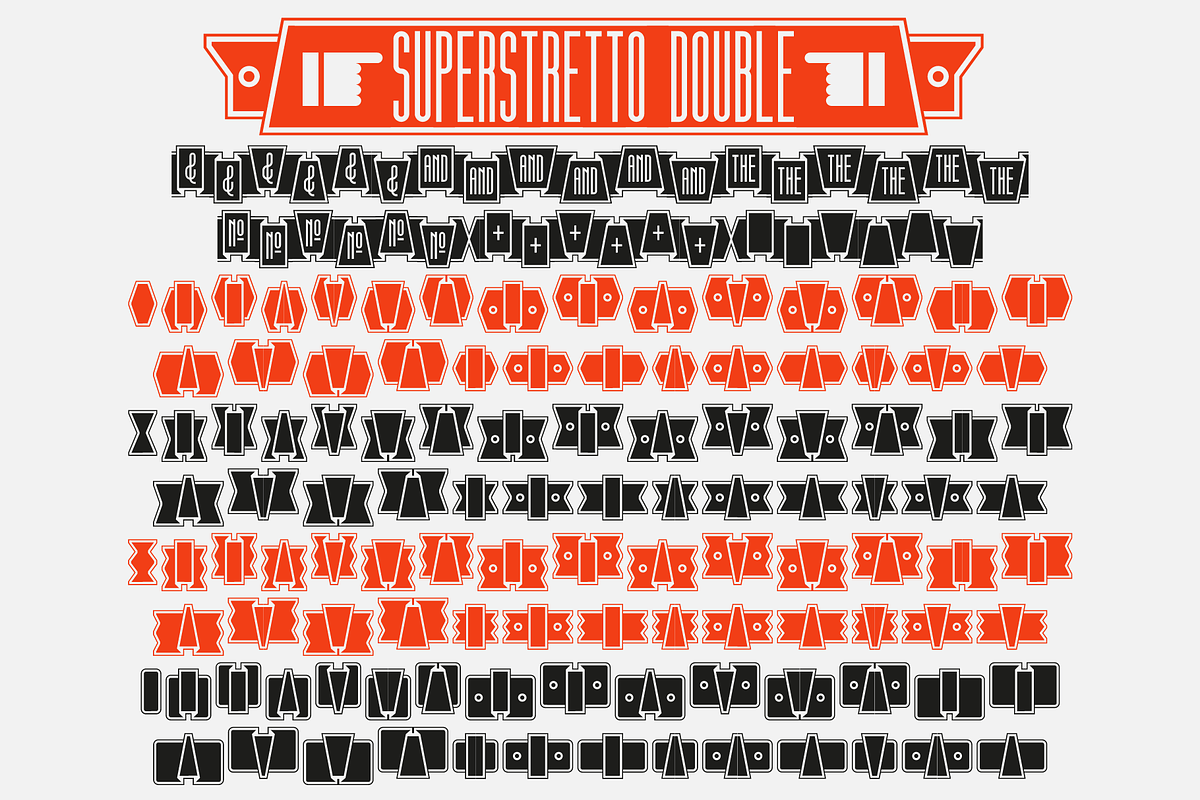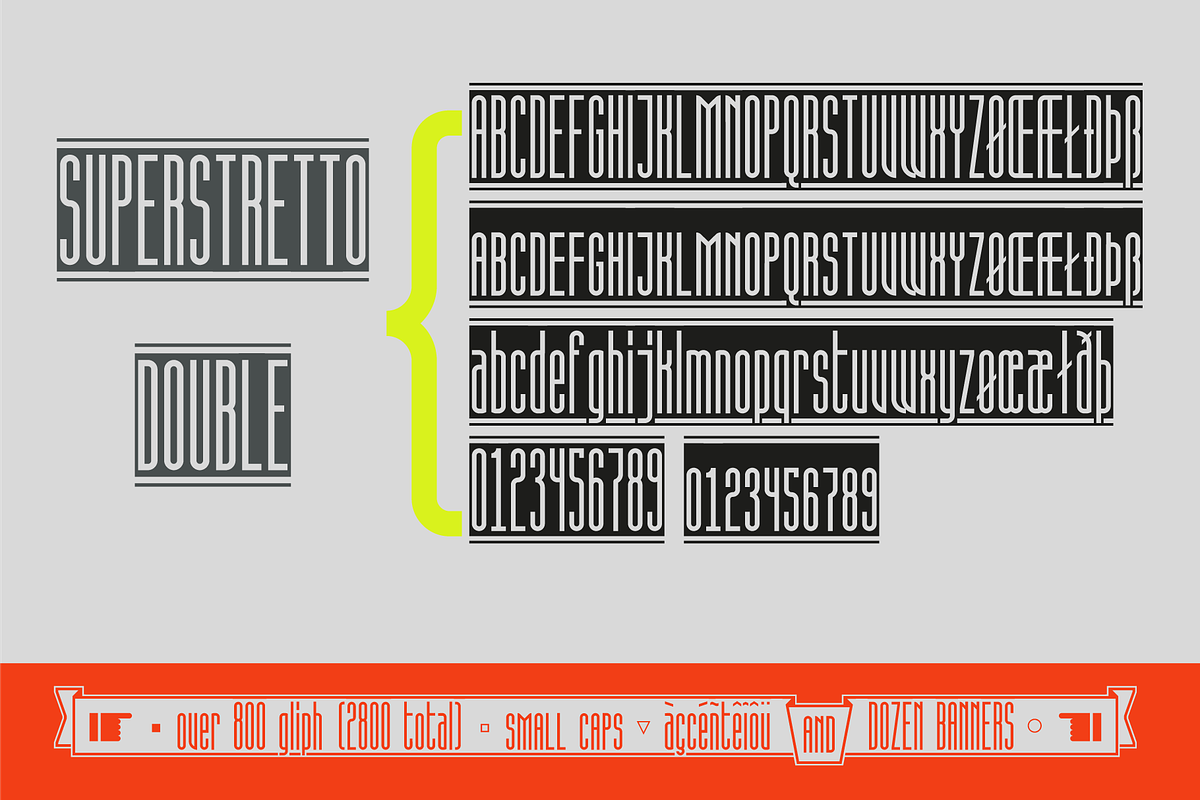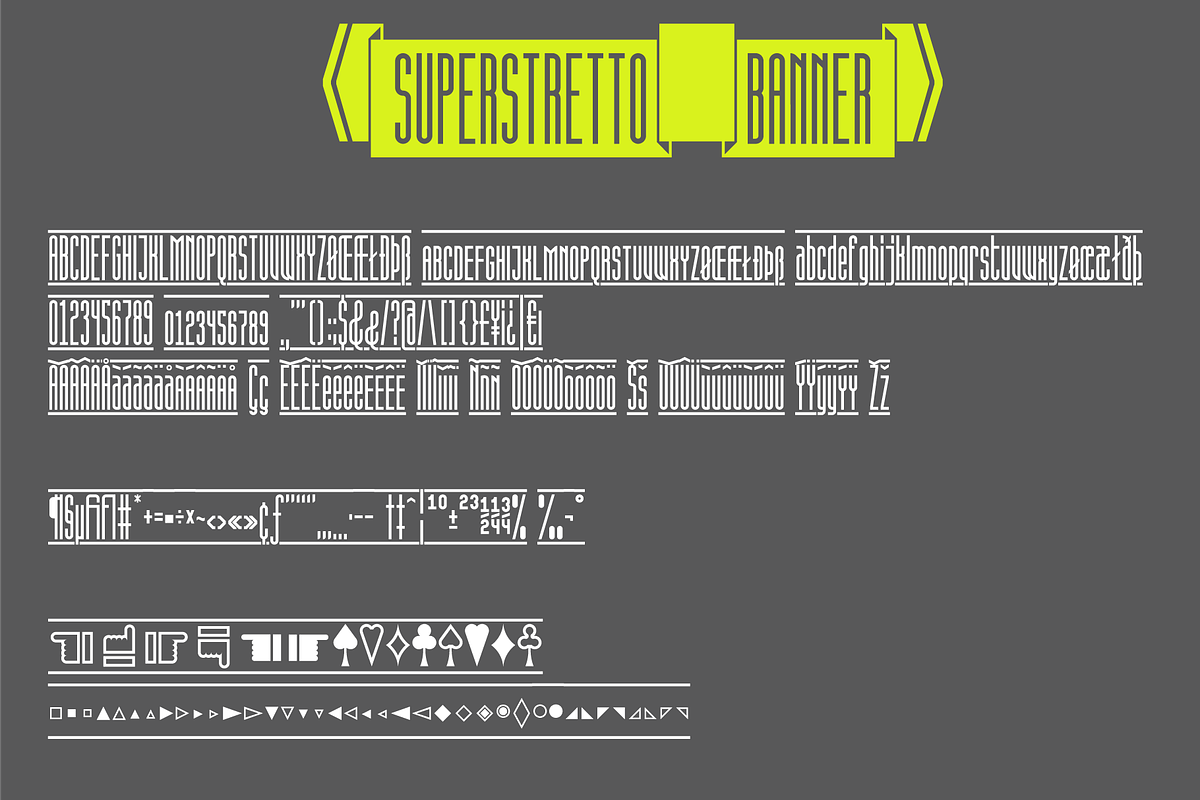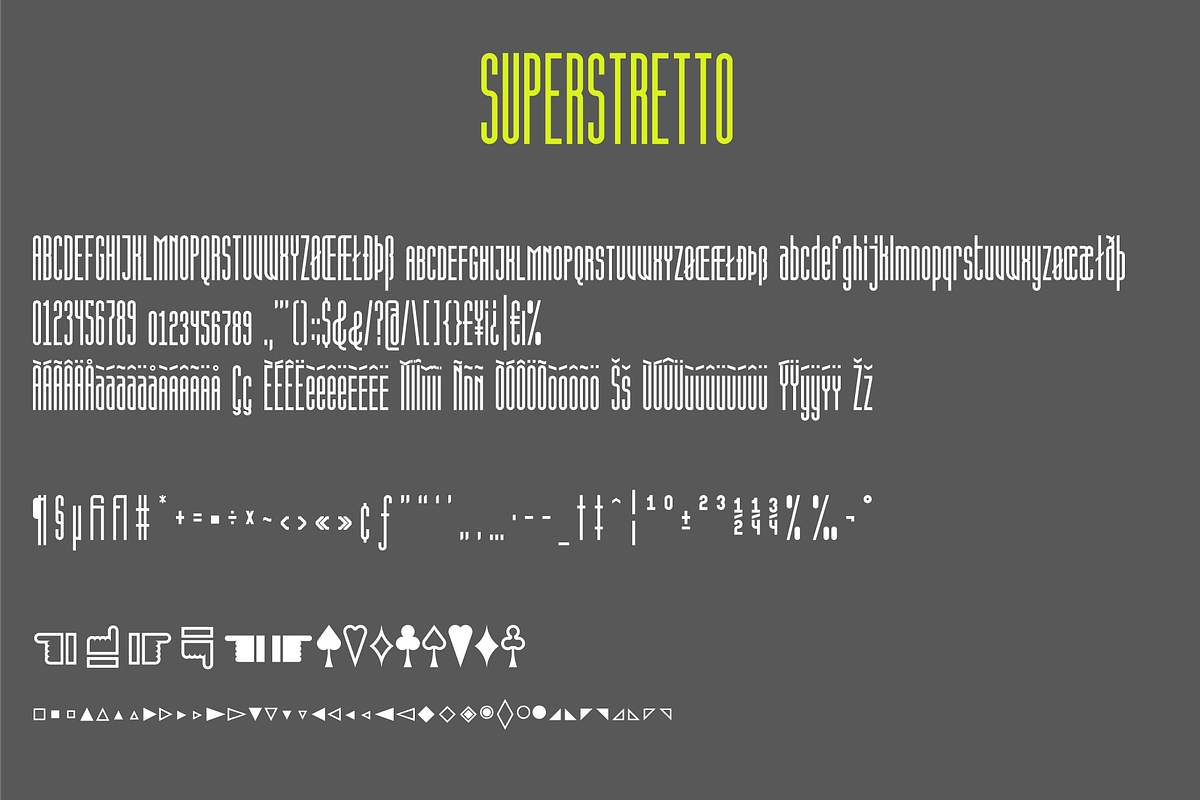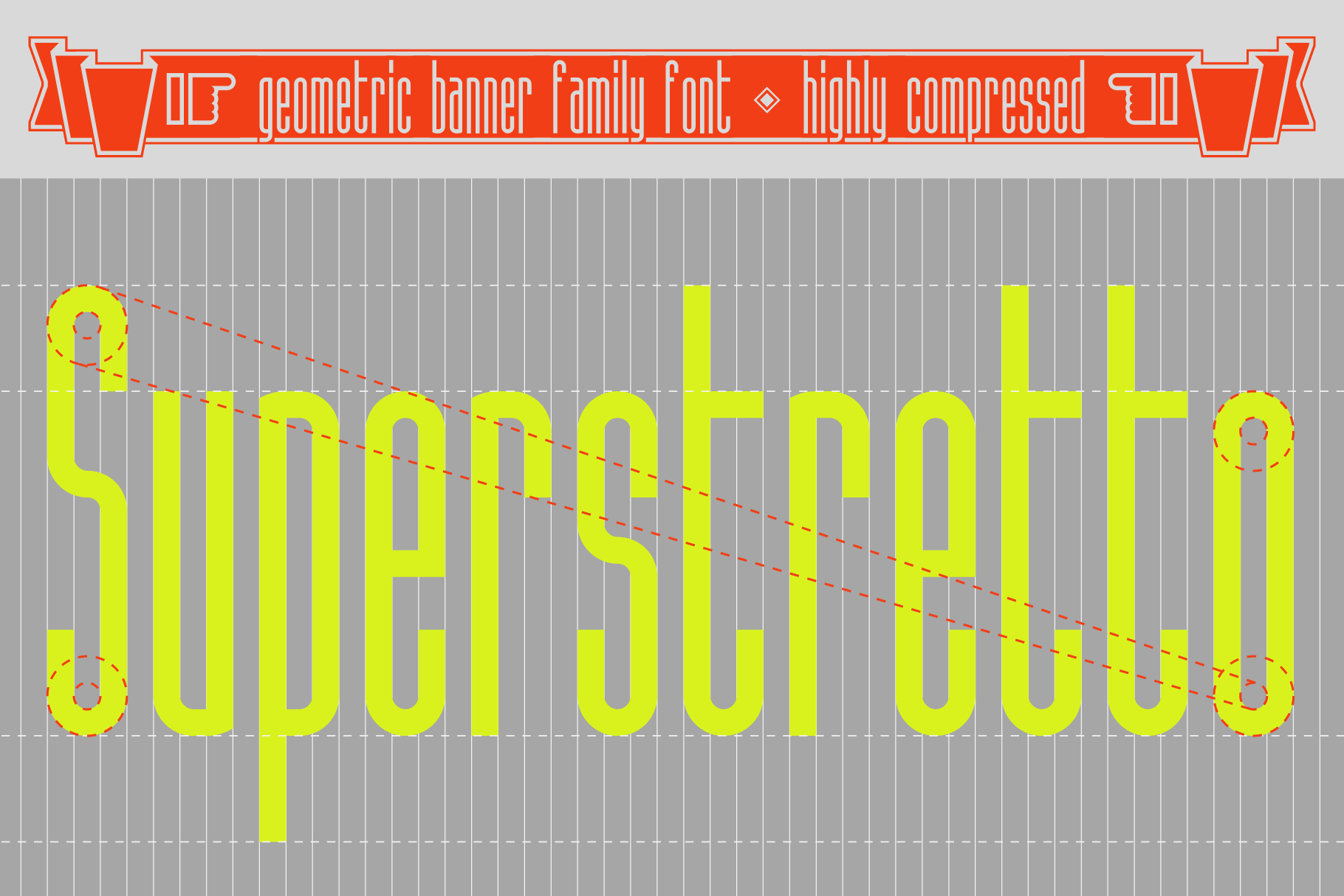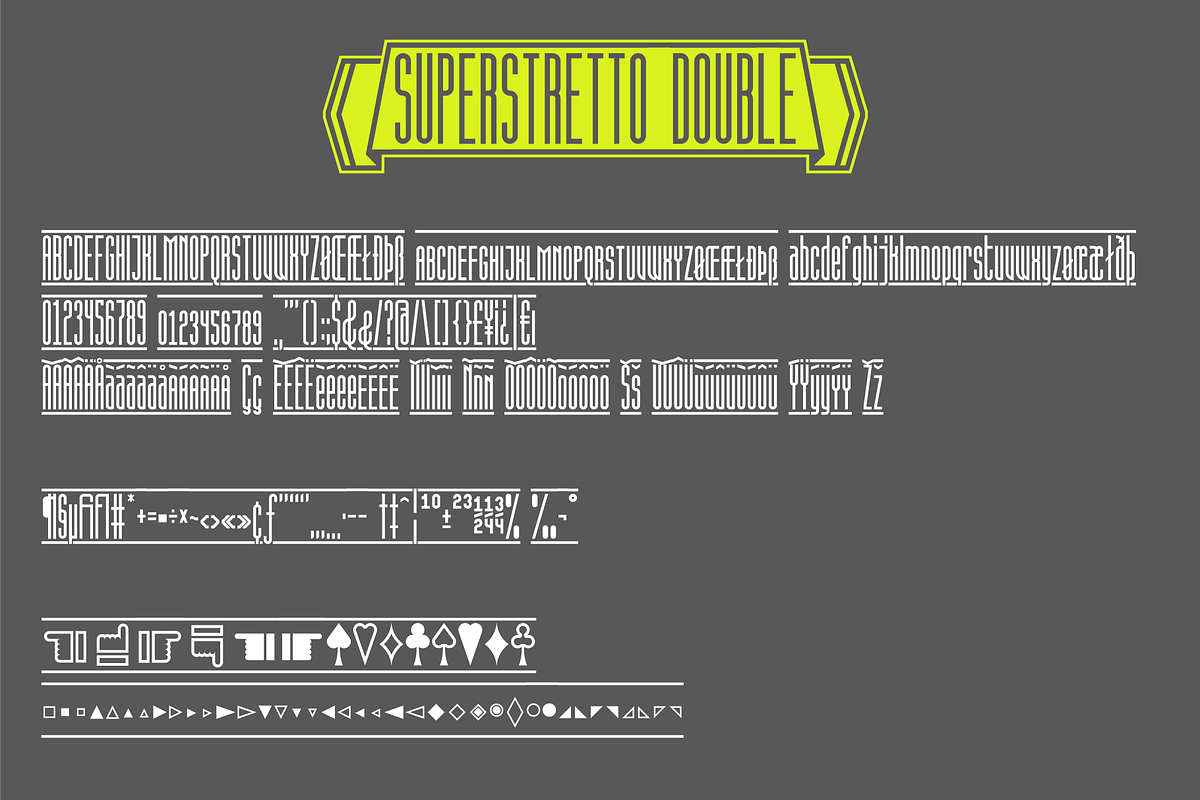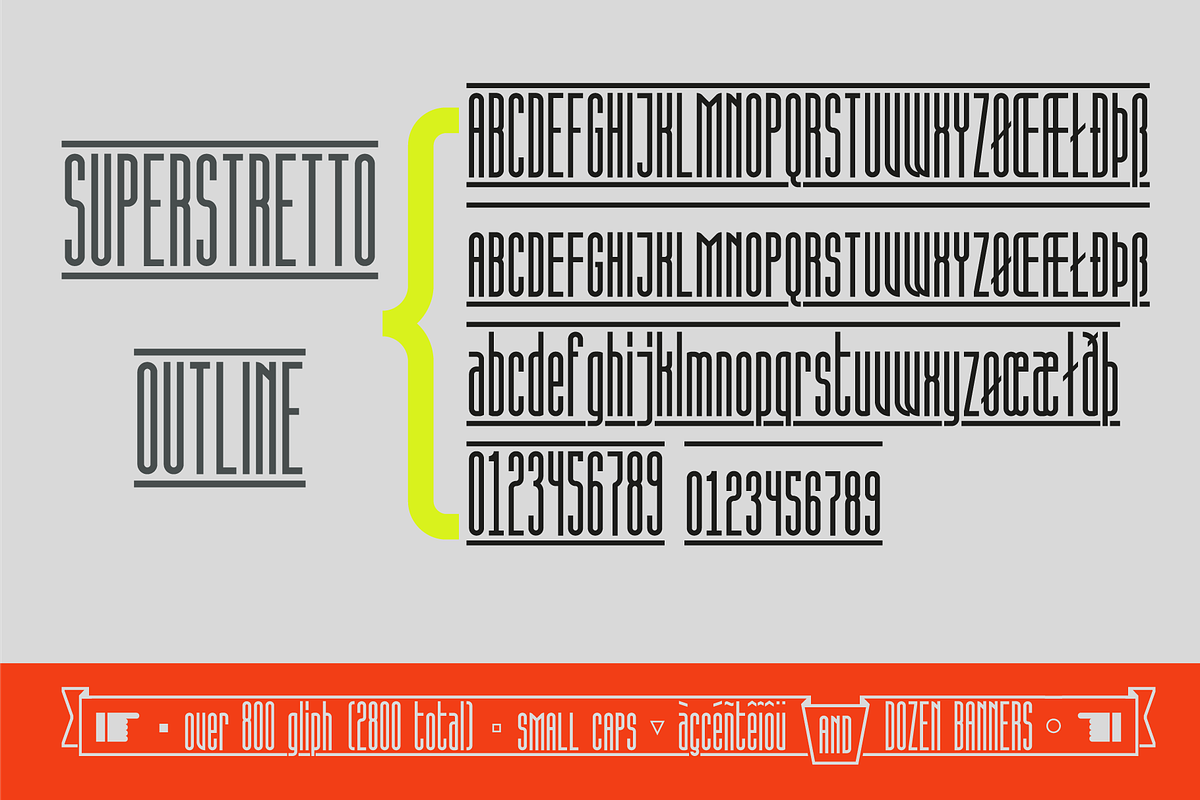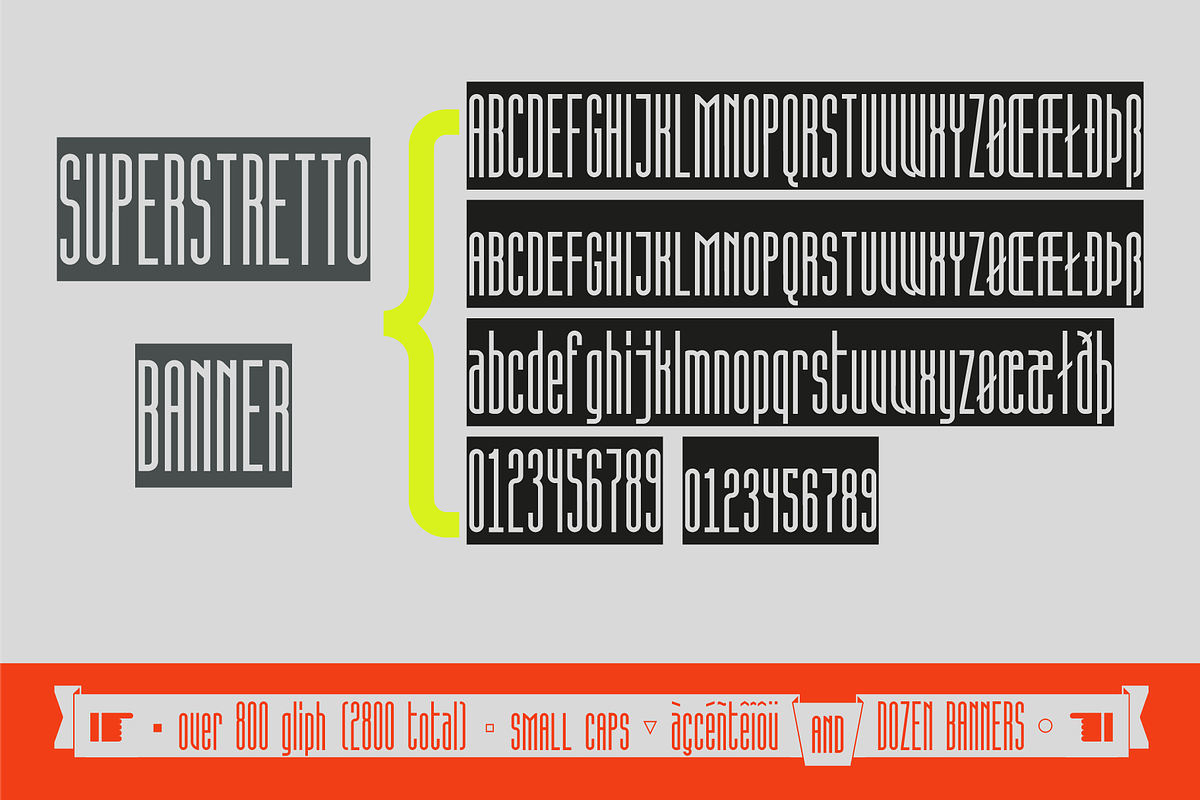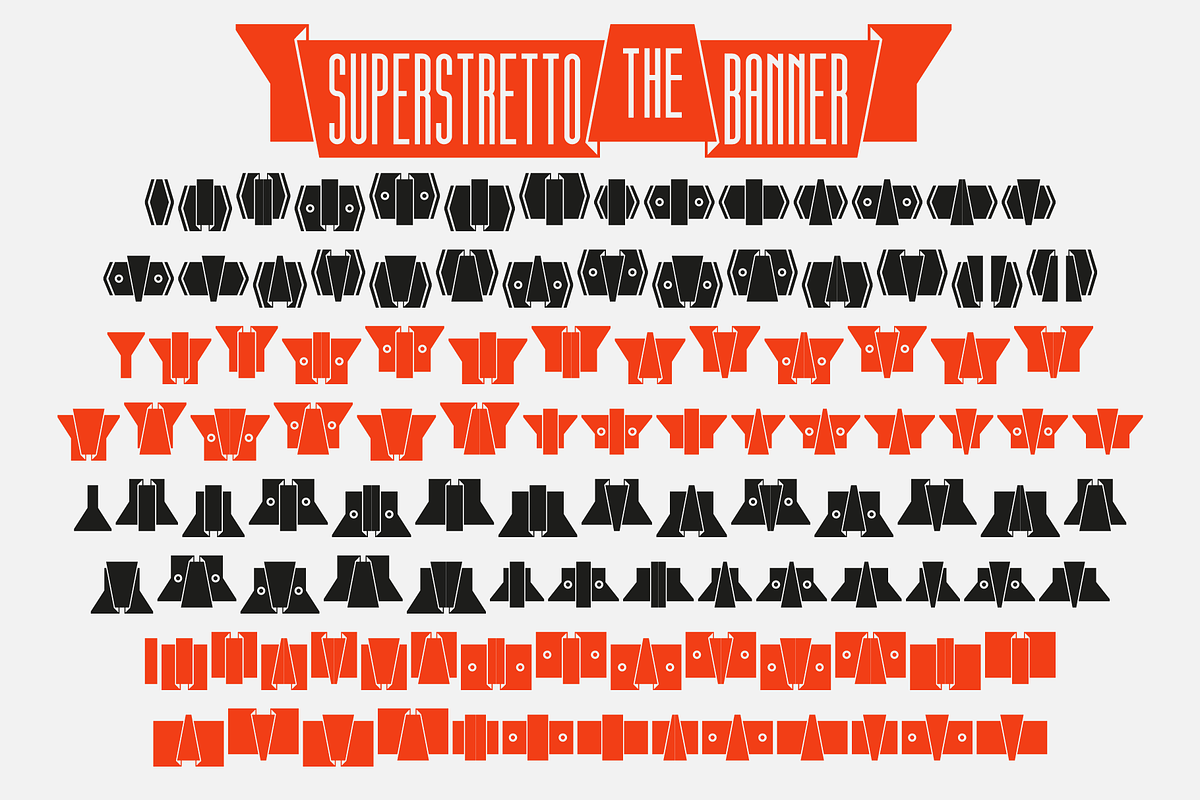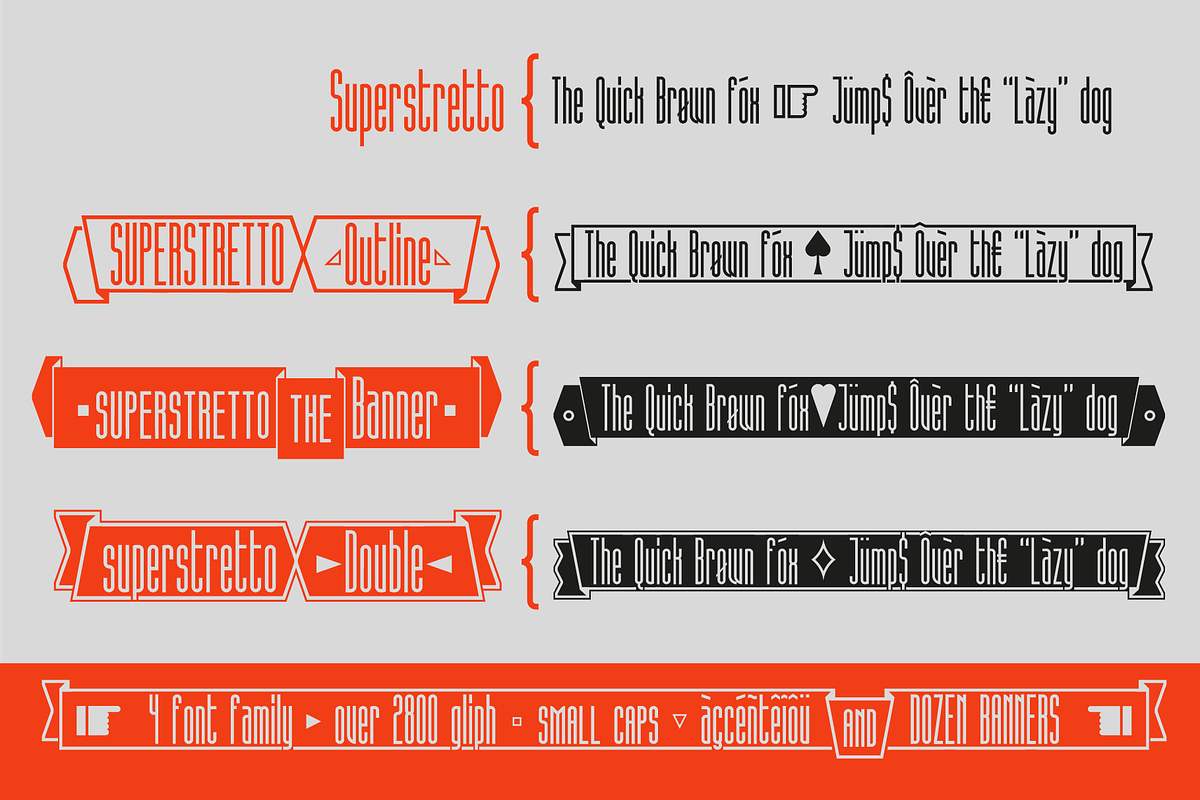
Superstretto Family banner font
SUPERSTRETTO is a brand new Sans Serif Ultra Condensed Banner font family based on a EGG - Extreme Geometric Grid (do you know? NO?... strange...) meant to be used:
- for your's branding and logo project
- for creating a innovative banner
- for magazine headline
- or just to be able to tell everyone "I'm cool".
Currently it comes in 4 individual styles:
- Superstretto (without the banner gliph)
- Soperstretto Banner (simply banner)
- Superstretto Outline (outlined banner)
- Superstretto Double (banner type and... outline inside... ok, it is the most complex of the family!)
Each weight includes extended language support, dingbats, decorative signs and more other stuff for a total of up to 2800 gliphs and unfinished combination.
Opentype feature
- Standard ligature (liga, dlig)
- Small capital (c2sc, smcp)
- Dingbats decorative stuff
- An incredible selection of decorative banner
Superstretto is incredibly useful on most of creative field like magazine, poster, book, composition and it's a great ingredient to have in every kitchen!